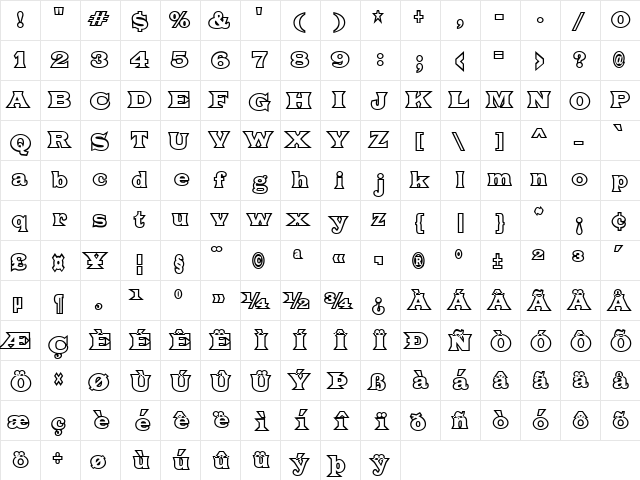
Fat Legs Outline Semi-expanded Heavy
| Designer | George Herbert Hirst and Wilfred Rhodes |
Design Context for Fat Legs Outline Typeface
Fat Legs Outline brings ornamental detail and strong personality to headlines and identities, where visual impact matters more than quiet functionality.
Font Pairing: Pair with a clean neutral sans-serif for body copy to let Fat Legs Outline's character lead without overwhelming the composition.
Pro Tip: Treat Fat Legs Outline as the centrepiece of your typographic hierarchy. One strong heading set in a decorative face can carry an entire layout.